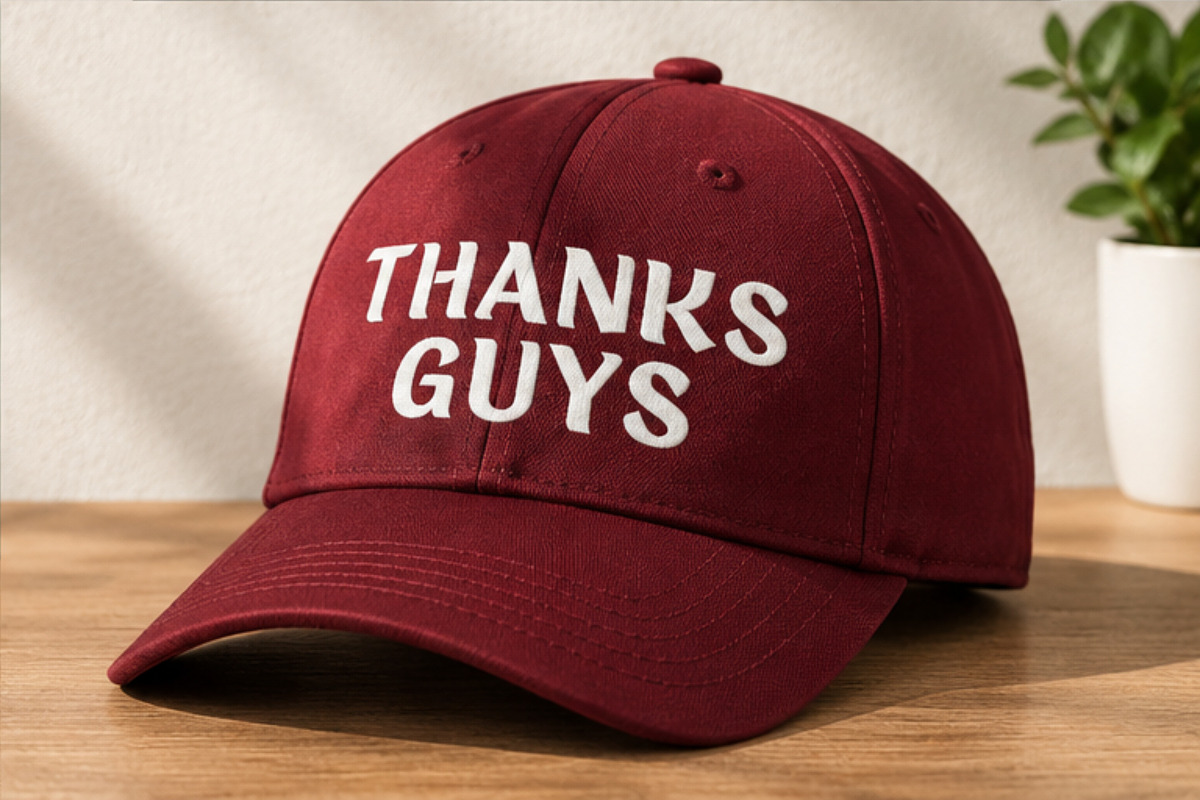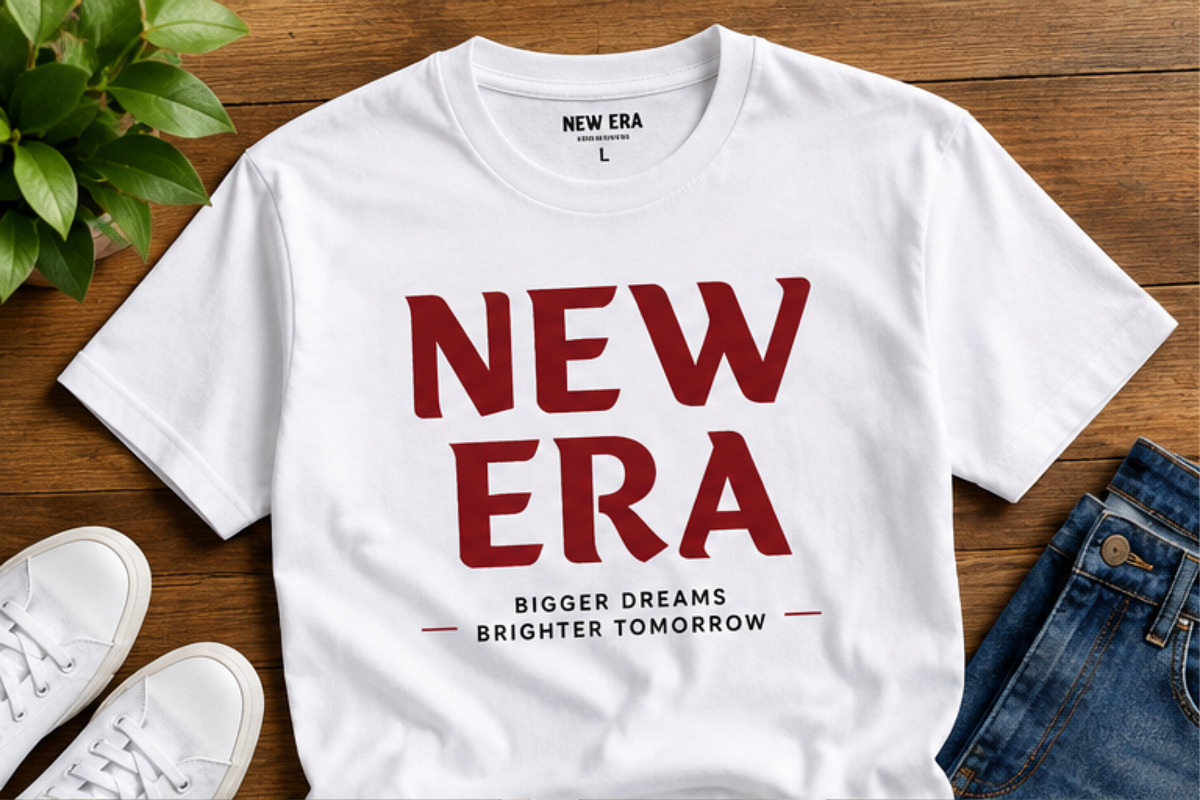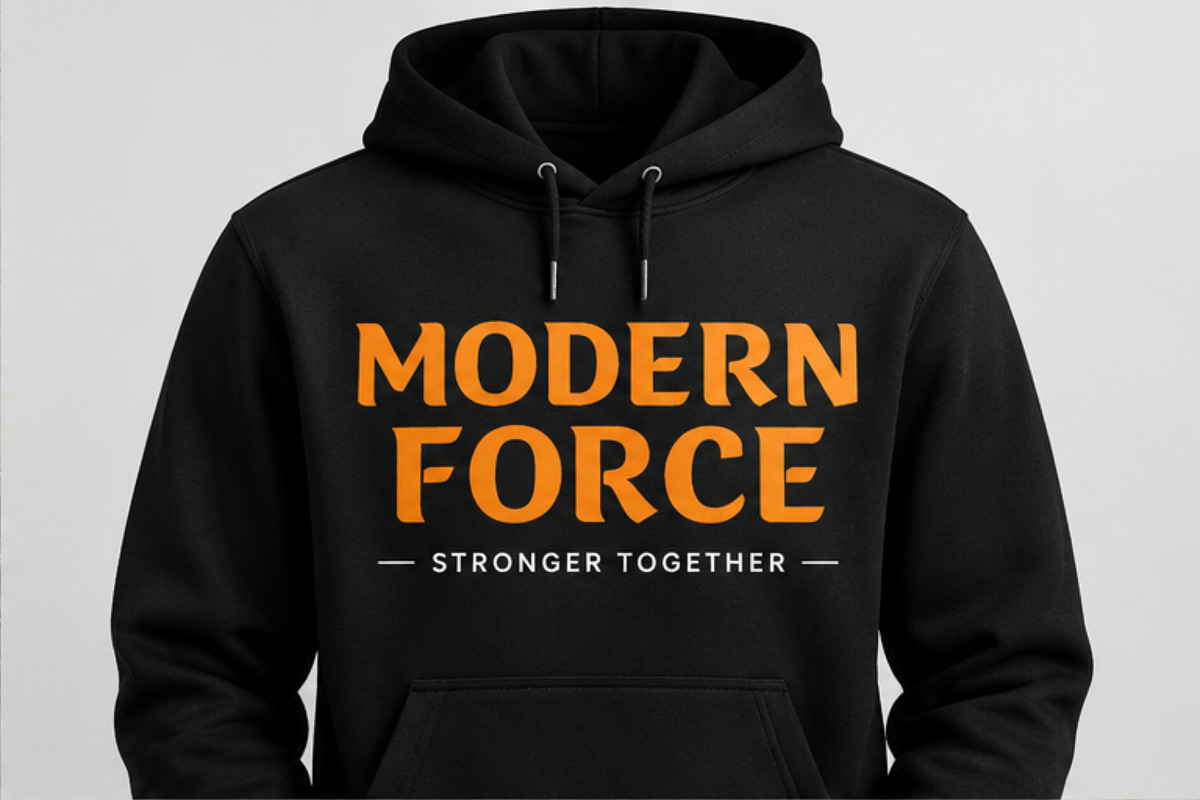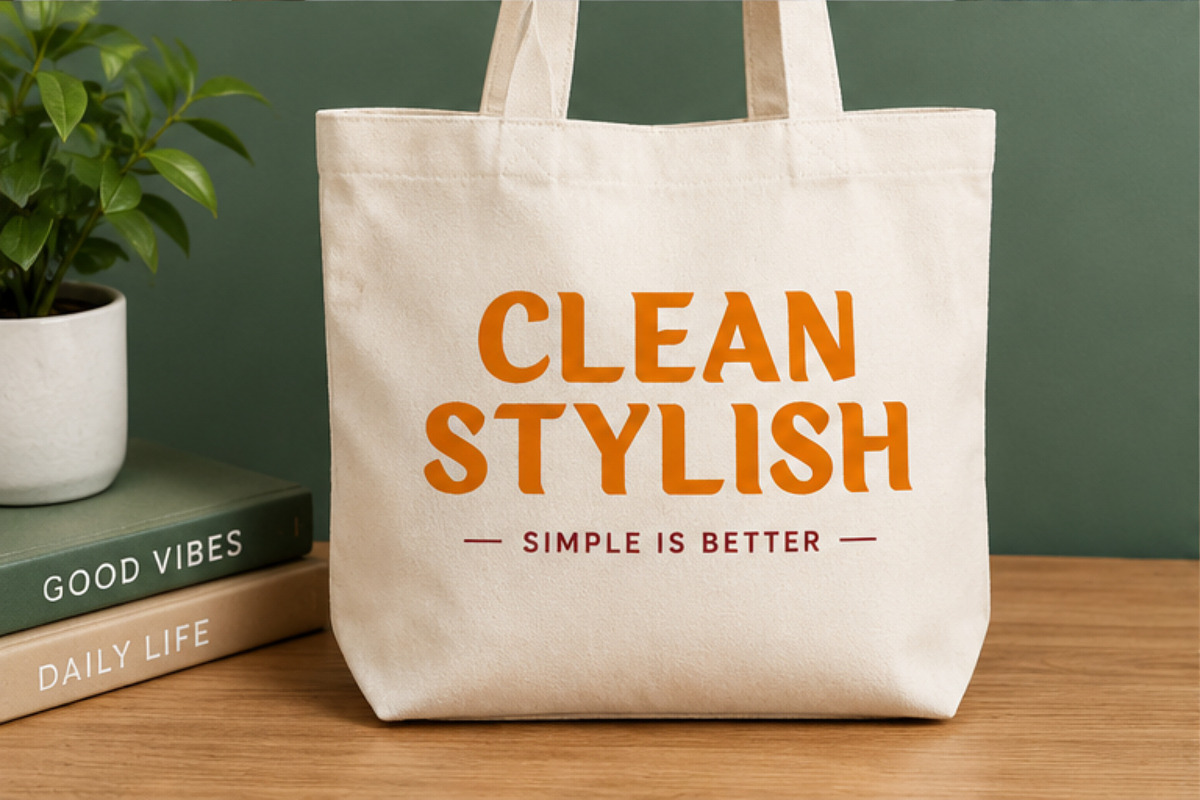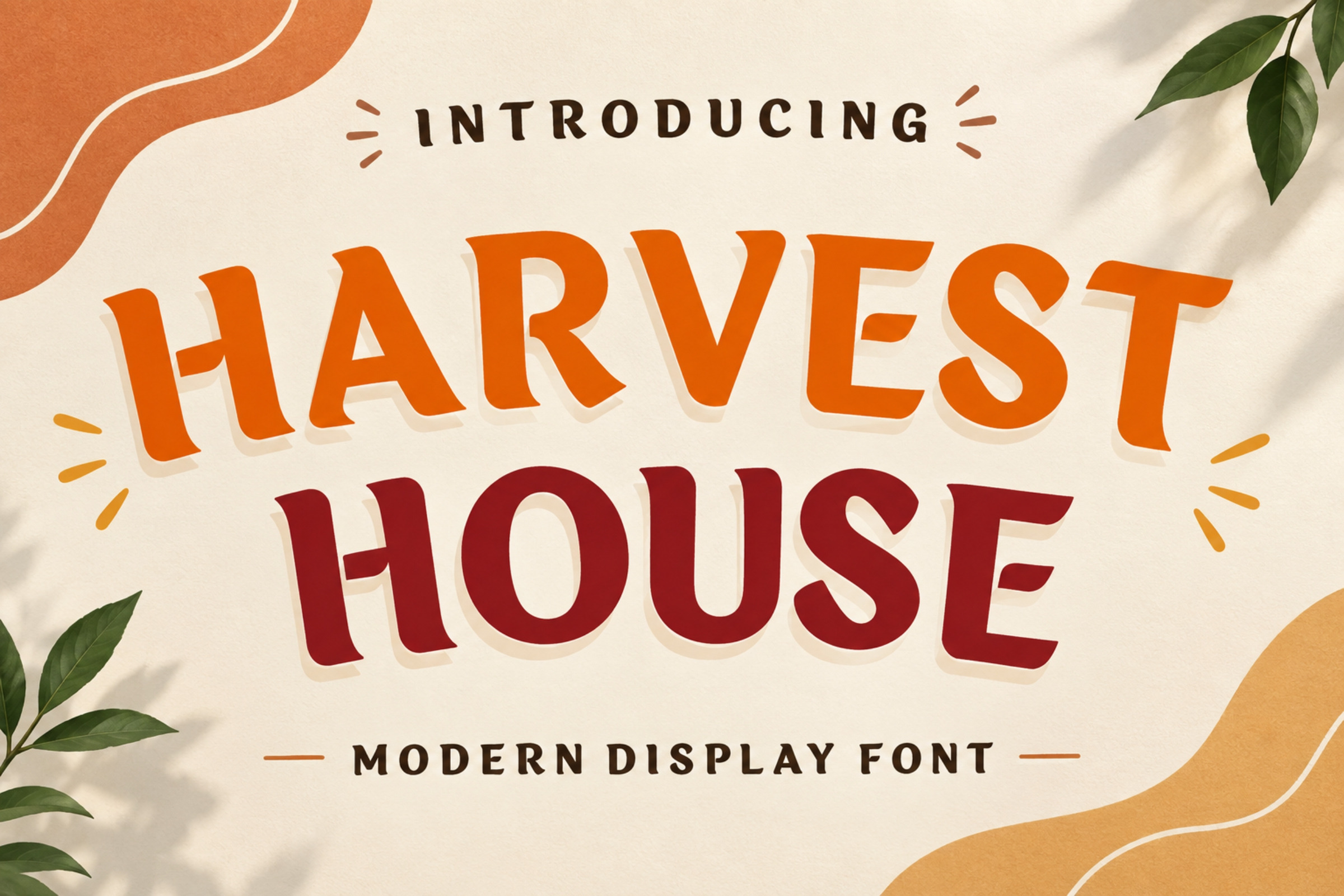
Harvest House - Rustic Font
Bring warmth and rustic charm to your creative projects with Harvest House Font. Designed with a handcrafted character and cozy countryside feel, this font is perfect for farmhouse-inspired designs, fall and harvest projects, rustic branding, home decor, signs, packaging, invitations, and handmade crafts.
Its friendly display style works beautifully for both personal and commercial design projects. Use Harvest House to create warm typography for Cricut projects, SVG designs, T-shirts, mugs, labels, posters, greeting cards, social media graphics, and more.